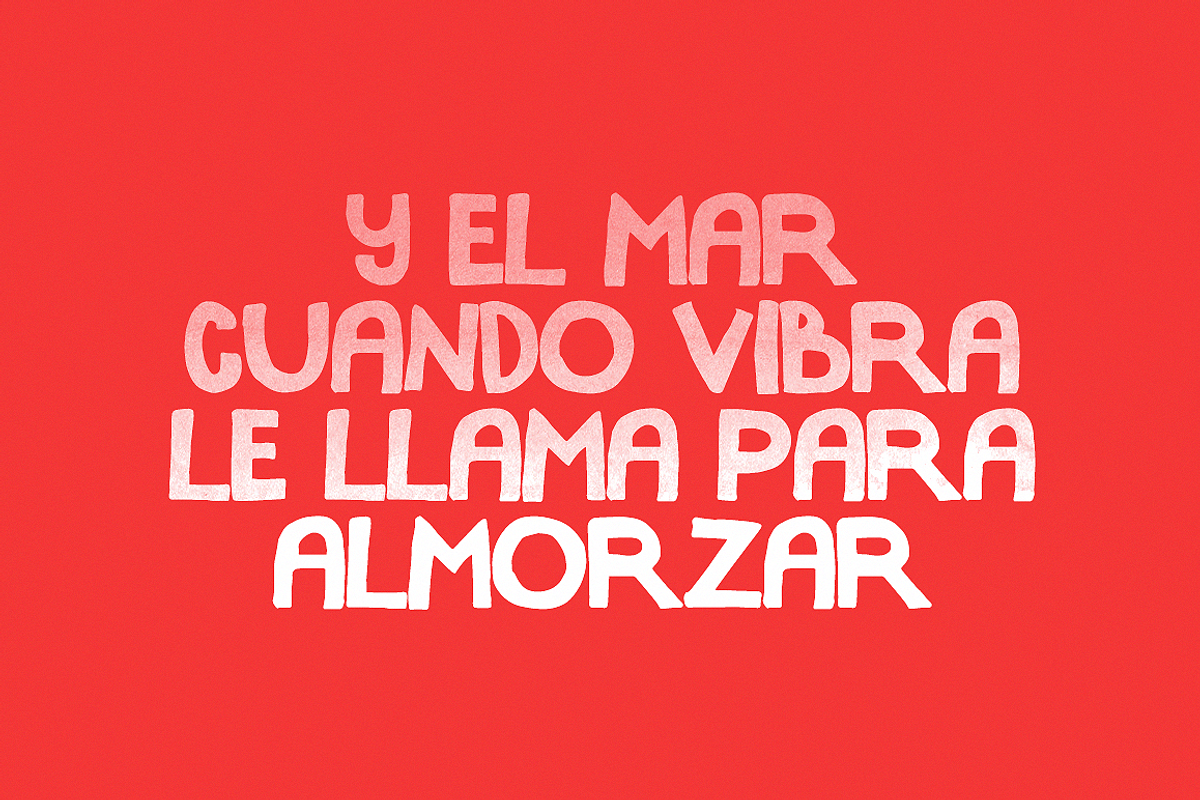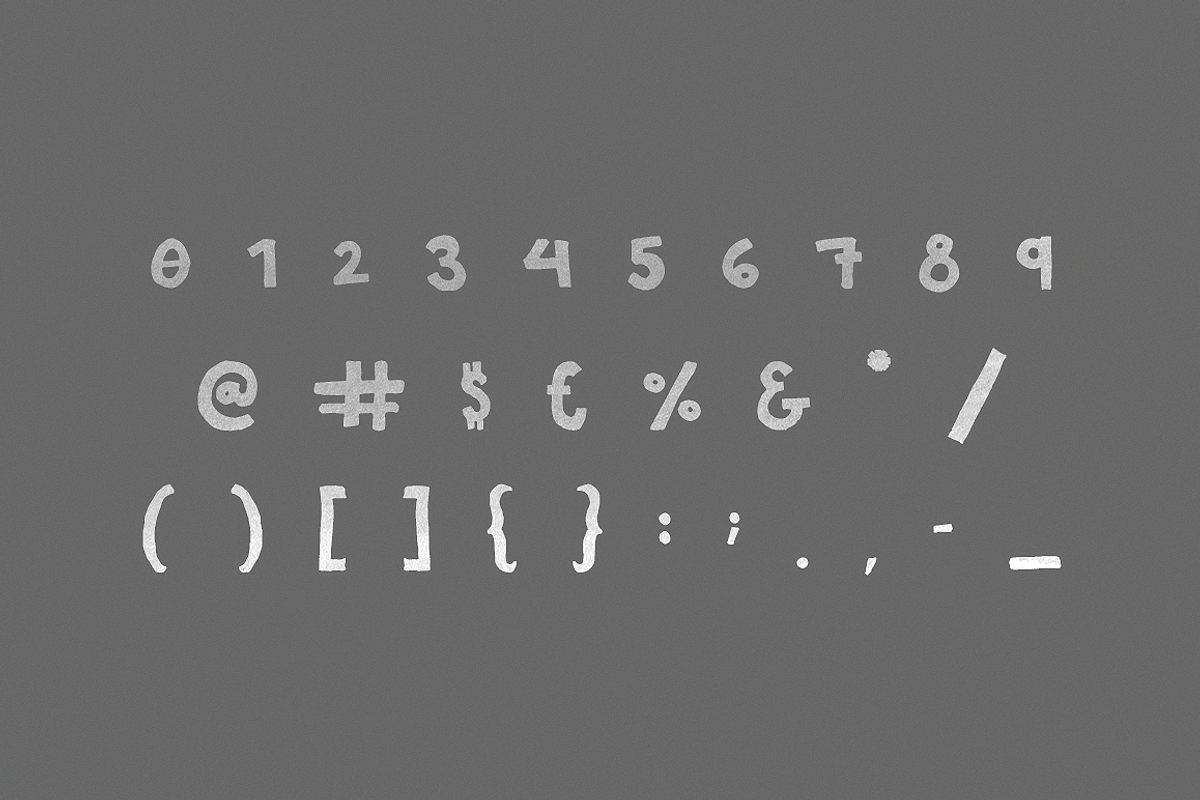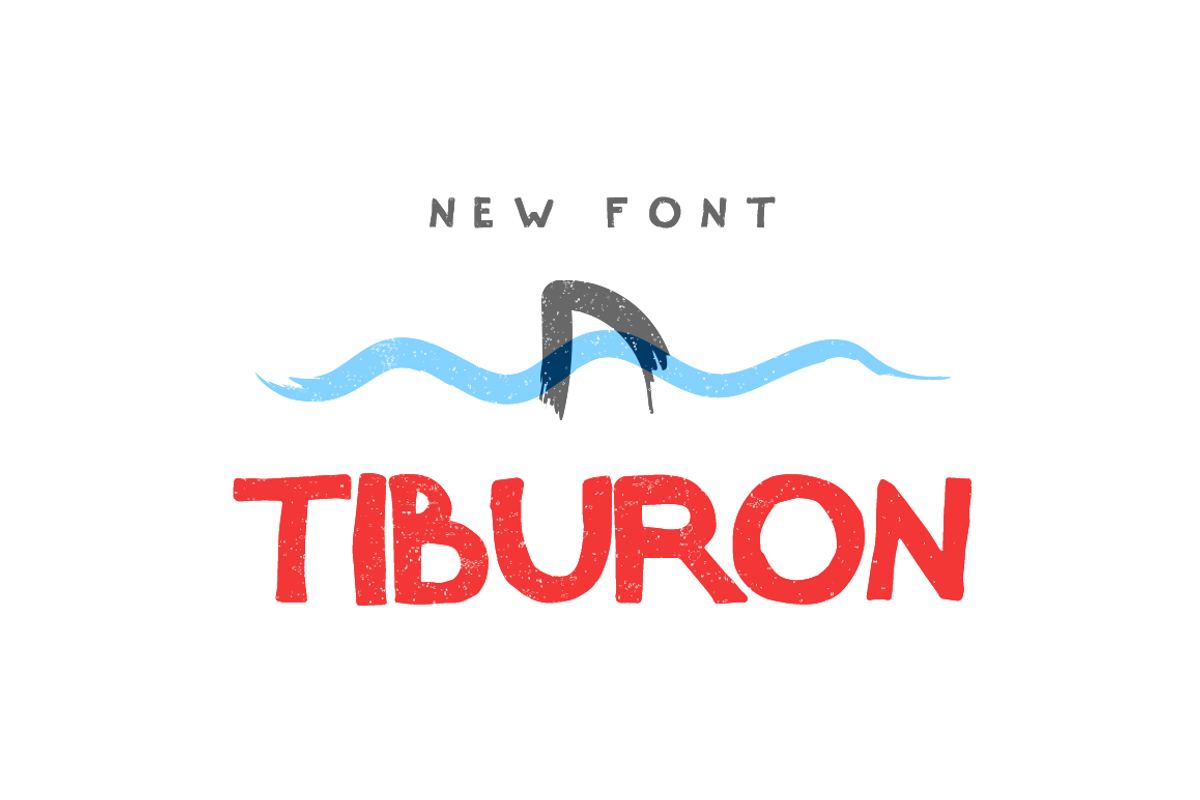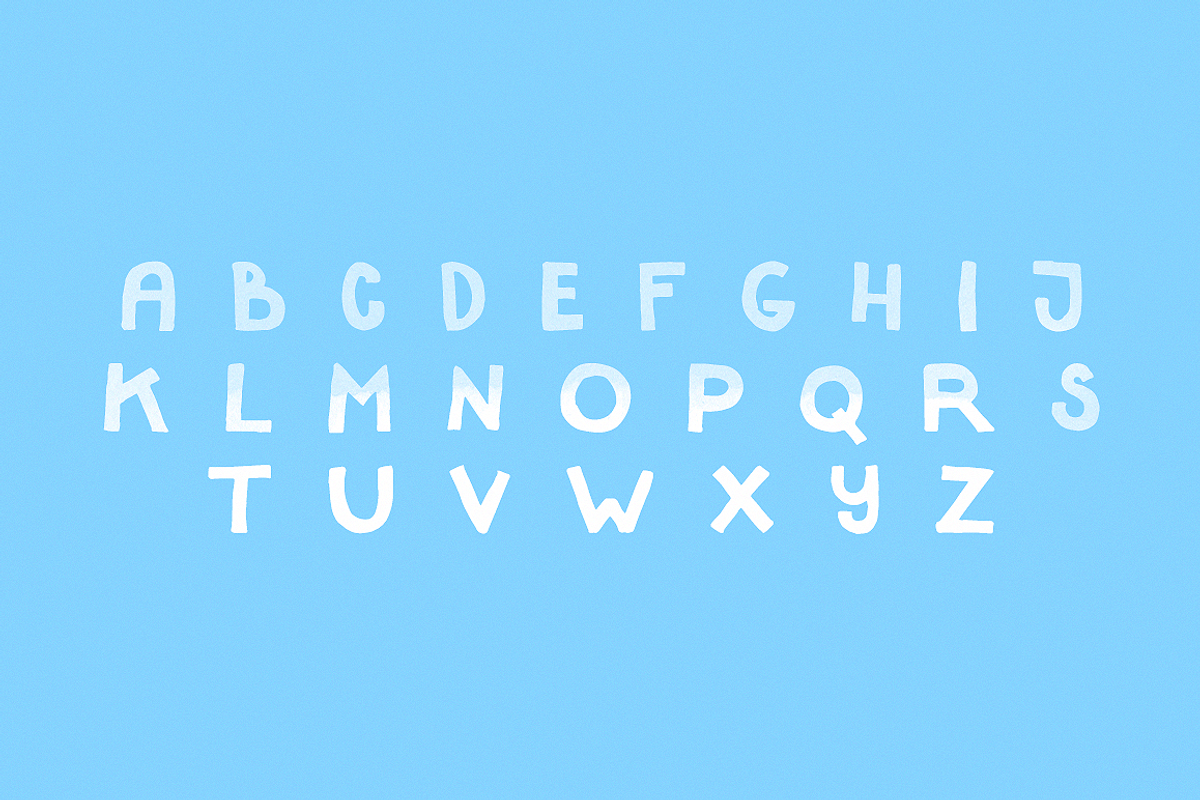
Tiburon — Font
Tiburon — Font by Noe Araujo is a font selected for branding, posters, packaging, typography.
- Sharkkk a nice font to create big headers give it a try here and love it like me ;D Hey but what's included?
Tiburon — Font by Noe Araujo fits naturally into Branding, posters, packaging, typography.